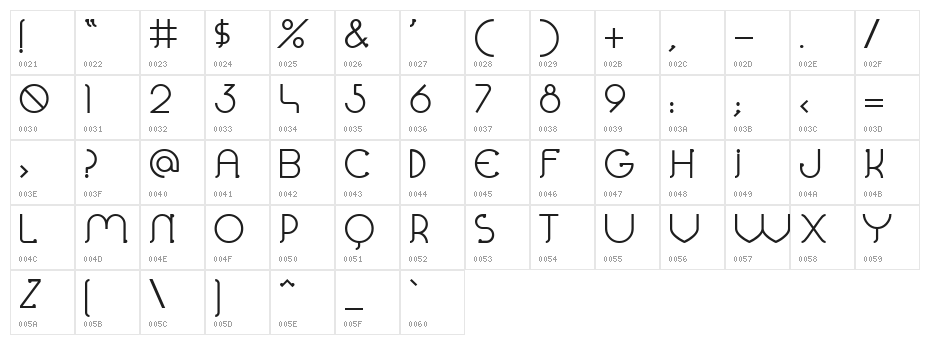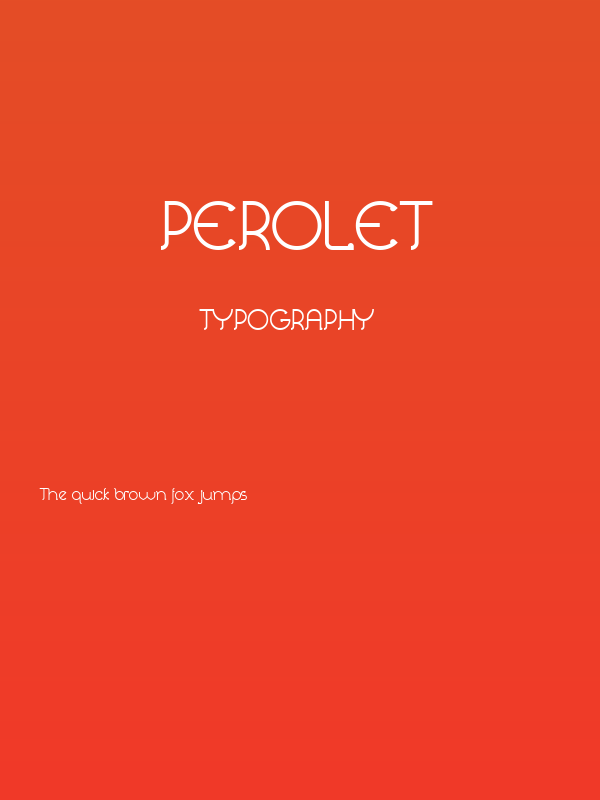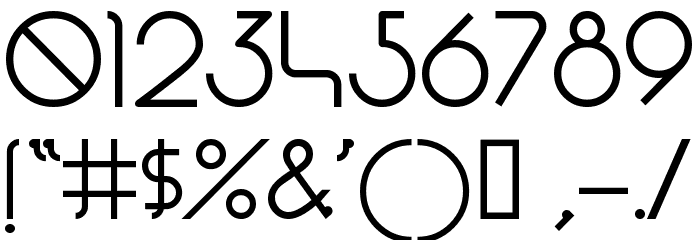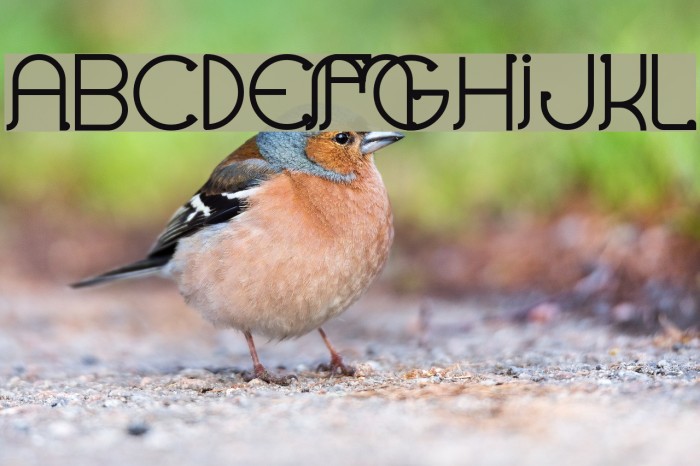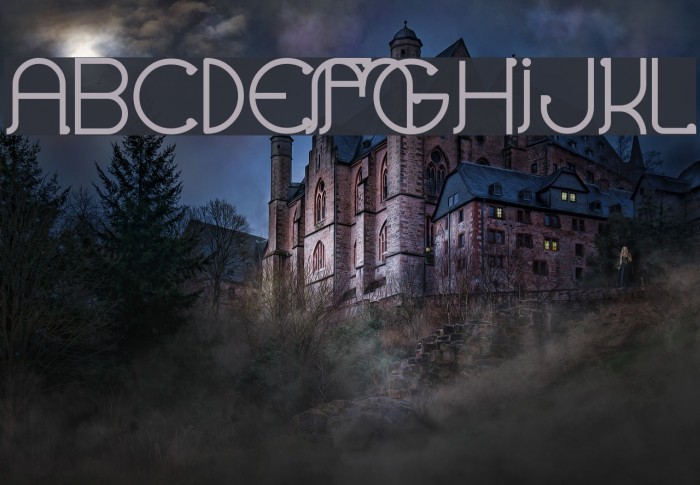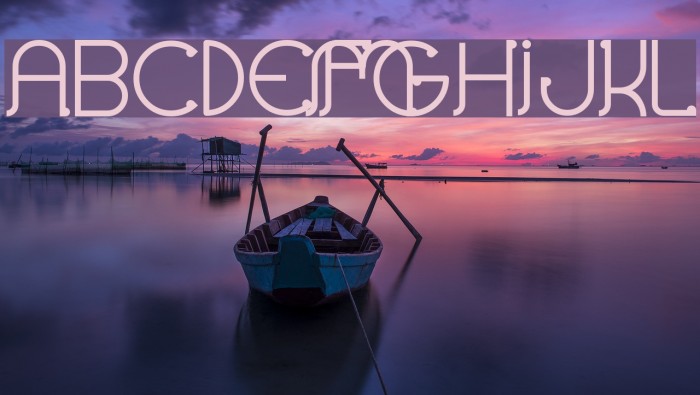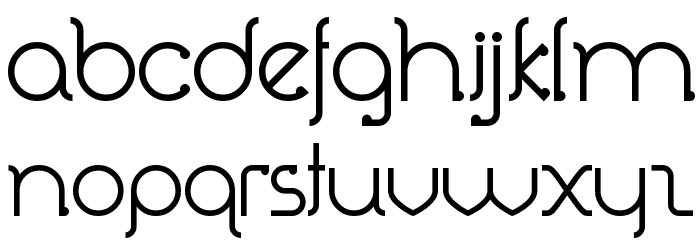
Perolet Font
Perolet Description
This font features a unique and modern design with a geometric and artistic flair. The characters are crafted with a blend of straight lines and curves, creating an intriguing visual effect. The uppercase letters exhibit a distinctive style with open spaces and rounded edges, while the lowercase letters maintain a consistent flow with a slightly more compact form. The numerals are bold and clear, ensuring readability. Special characters are creatively integrated, adding to the font's versatility. Overall, this font is a perfect choice for projects that require a contemporary and artistic touch.